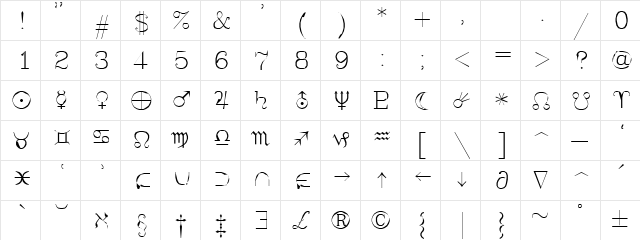
Syastro Regular
Design Context for Syastro Typeface
Syastro offers clean, dependable letterforms without strong stylistic allegiance, making it a practical choice for designers who need flexibility.